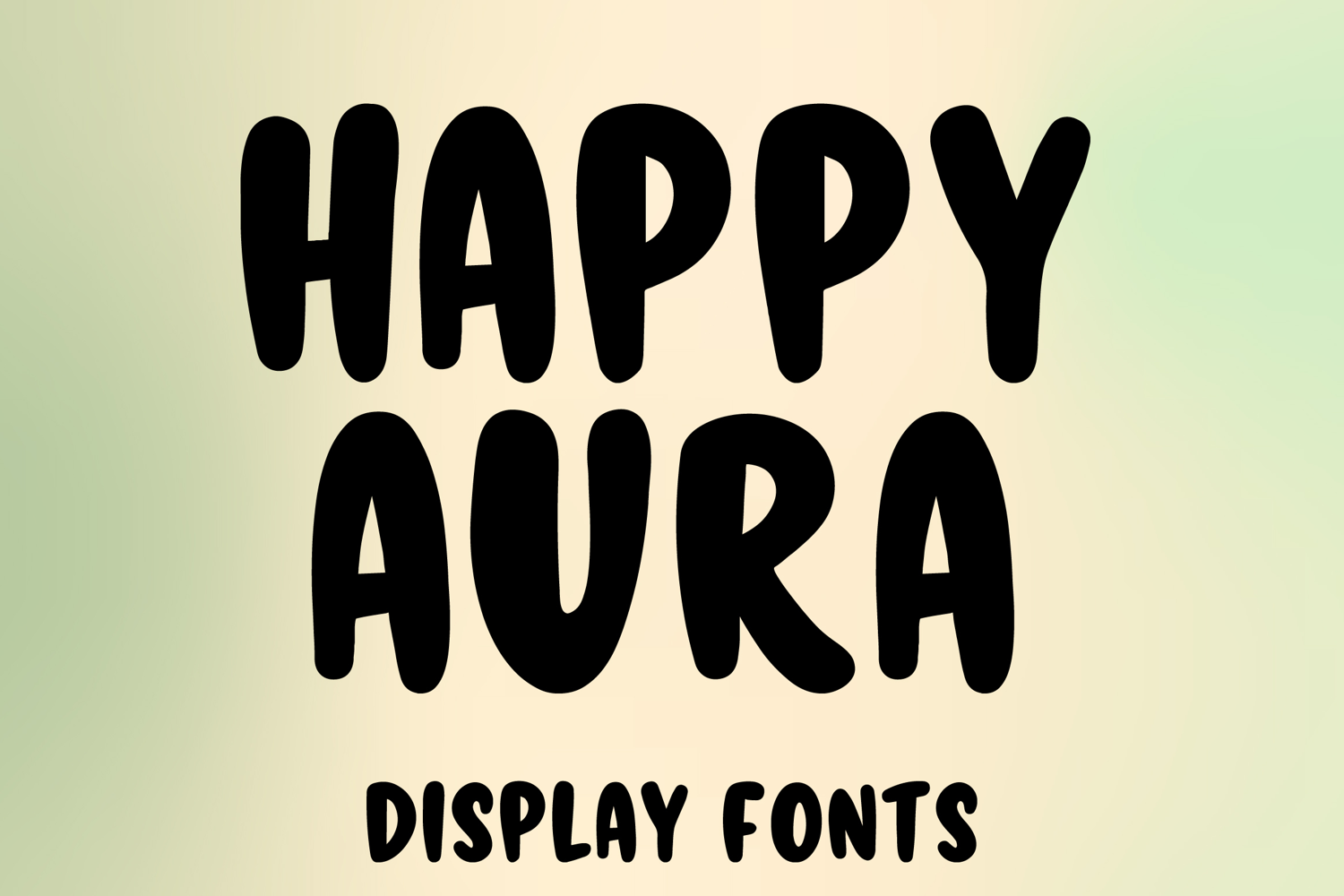
HAPPY AURA
HAPPY AURA is a bold playful display font with a soft hand-drawn style and cheerful modern charm. Its uppercase letterforms feature thick rounded strokes, smooth organic shapes, and a friendly chunky look that creates a fun, warm, and eye-catching personality. Designed with uppercase letters A–Z and numbers 0–9, HAPPY AURA is perfect for branding, posters, packaging, logos, kids’ designs, social media graphics, and creative projects that need a joyful and memorable statement.